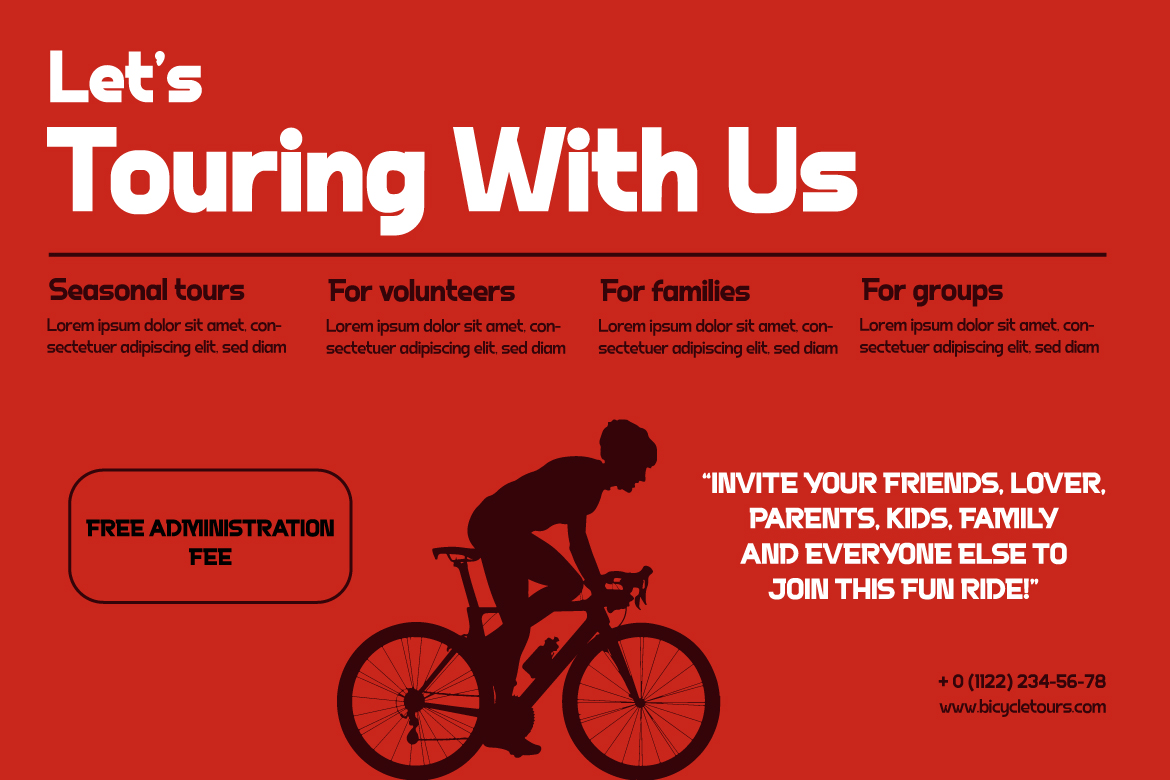
Efrida Font
Efrida Font is a sanserif font family with a sporty and maco feel. Naturally, this typeface will make your diverse projects look attractive, distinct, and flawless. because we created it with great care so that you can use it for a variety of purposes in your amazing project of course, your various design projects will be perfect and extraordinary if you use this font because this font is equipped with a font family, both for titles and subtitles and sentence text, start using our fonts for your extraordinary projects.